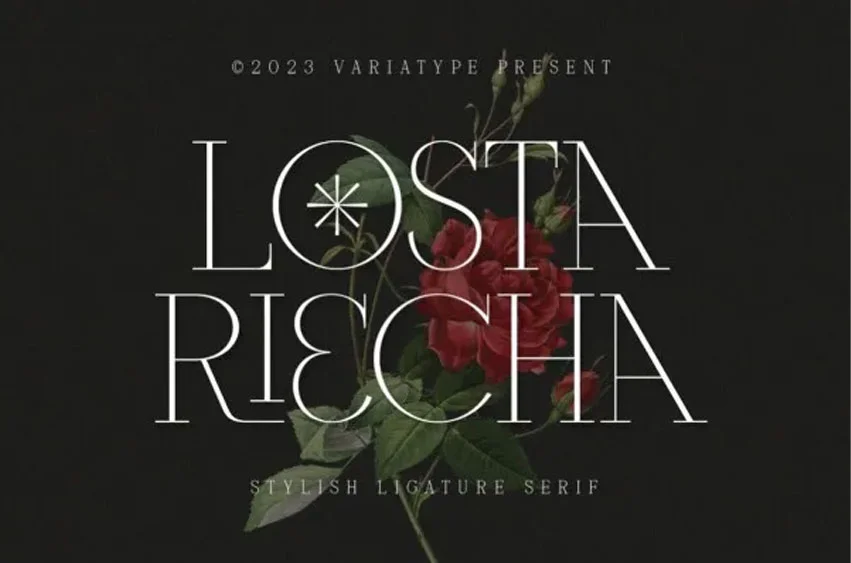
Losta Riecha Font
Losta Riecha Font is a stylish and luxurious serif font inspired by fashion trends and includes discretionary ligatures and stylistic alternates. Perfectly match the contemporary design theme for many projects such as logotypes, corporate branding, poster design, business cards, headline cover, and more.
Losta Riecha Font Preview